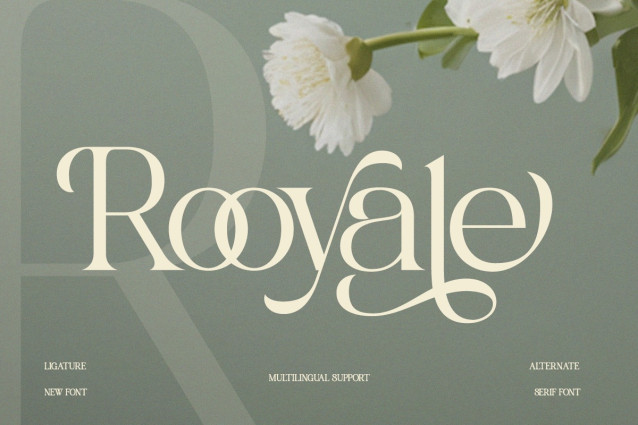
Rooyale Font
Rooyale Font a minimal and stylish serif with a calm luxury tone. Crafted with soft curves and modern proportions, Rooyale delivers an elevated presence for branding, packaging, and editorial work.
This typeface blends femininity, refinement, and confident simplicity—perfect for beauty brands, boutique logos, and timeless layout styling.